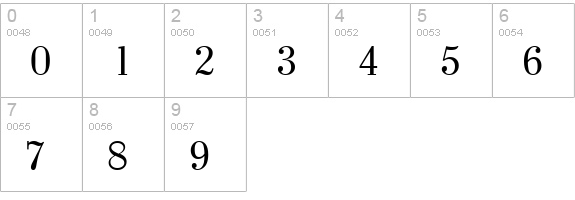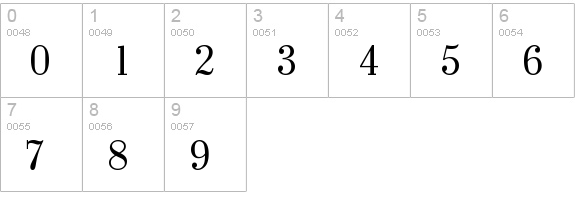
WichitaSerial-Regular is the standard, neutral variant in the WichitaSerial typeface family \xE2\x80\x94 well suited to general body text, paragraphs, and standard typographic work.
WichitaSerial-Regular font is a modern and stylish typeface that exudes elegance and sophistication. With its clean lines and contemporary design, this font is perfect for a wide range of creative projects, from branding to advertising and beyond. The sleek and versatile nature of WichitaSerial-Regular makes it a must-have for designers looking to make a bold statement with their typography. The best part? WichitaSerial-Regular is completely free to download at FontsMarket.com, making it accessible to designers of all levels. Whether you're a seasoned professional or just starting out, this font is sure to elevate your designs and help you stand out from the crowd. Download WichitaSerial-Regular today and unleash your creativity with this stunning typeface.